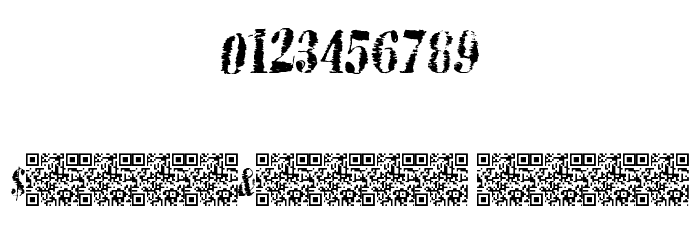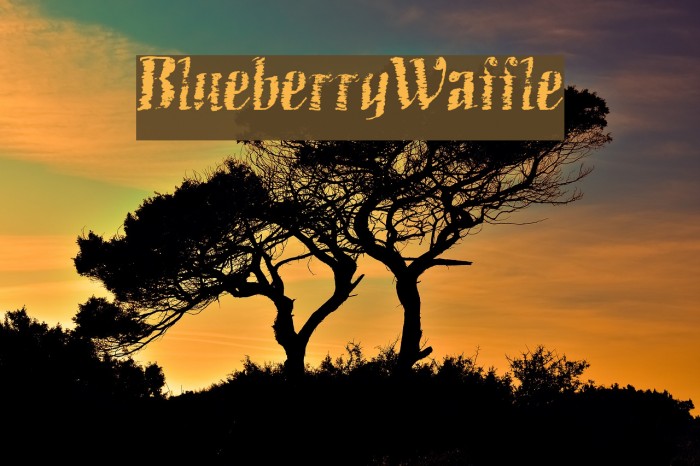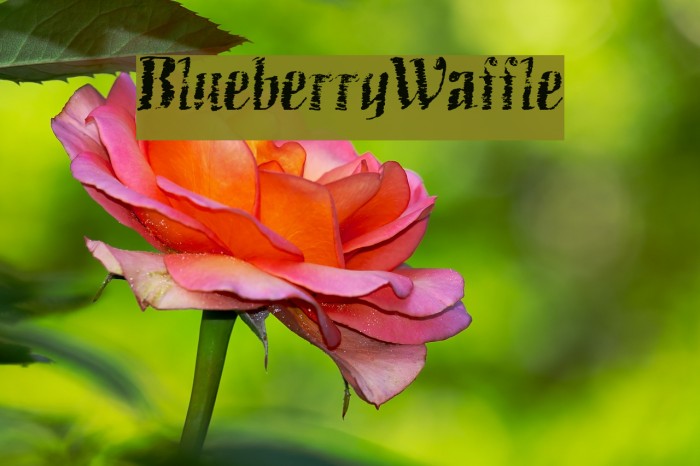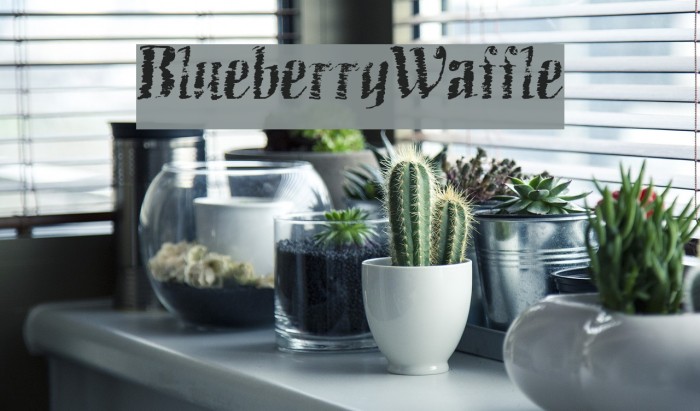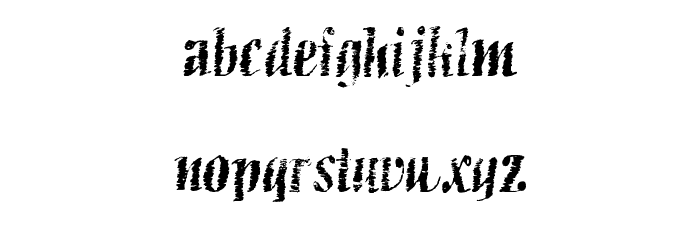
BlueberryWaffle Font
This font features a bold and distressed style, characterized by its rough, textured appearance. The letters have a unique, weathered look, giving them a vintage and rustic feel. The uppercase and lowercase letters maintain a consistent design, with slightly irregular edges that add to the overall charm. Numbers and special characters follow the same aesthetic, ensuring a cohesive look across all text. The font's distinct style makes it stand out, ideal for projects that require a touch of nostalgia or a handcrafted appearance.
A bold, distressed font with a vintage, textured style.
• Proposed Projects: Ideal for vintage-themed posters, rustic branding, and handmade product packaging.
• Category: Decorative/Display
• Bold: Yes
• Italic: No
• Weight: Bold
• Width: Normal
• Character Spacing: Normal
• Contrast: Medium
• Overall Style: Vintage
• Use Case: Logos, Headlines, Posters